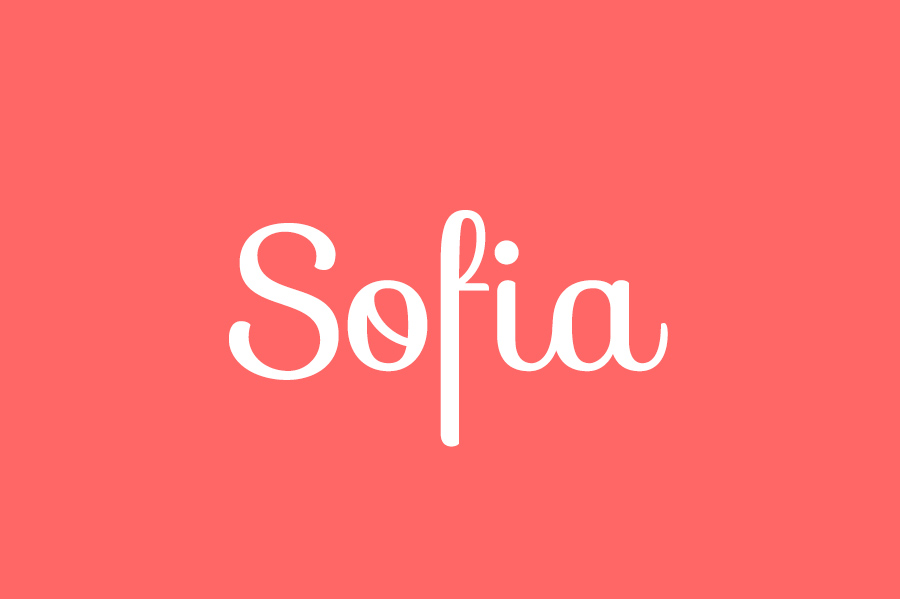
Introducing you the princess sofia font, she is a princess who principles the casa with love, grace, and fancy penmanship. The download is completely free for personal use and the font cannot be used for commercial purposes. Web sofia pro font free download if you are looking for a free version of this amazing typeface that can be freely used in your all personal and private projects then click on the below.
Princess Sofia She's A Real Princess Who Rules The Casa With Love, Grace And Fancy Penmanship.
Web sofia pro was designed by mostardesign.sofia pro with its 16 fonts, sofia is an ideal font family for text, branding, signage, print and web design creation. The download is completely free for personal use and the font cannot be used for commercial purposes. Web sofia pro font free download.
Introducing You The Princess Sofia Font, She Is A Princess Who Principles The Casa With Love, Grace, And Fancy Penmanship.
Web designed by crystal kluge of tart workshop (a dba of font diner, inc). Web the sofia font provided is for typography style knowledge only. Web sofia designed by paula nazal and daniel hernández, is an upright script font with some unconventional ligatures.